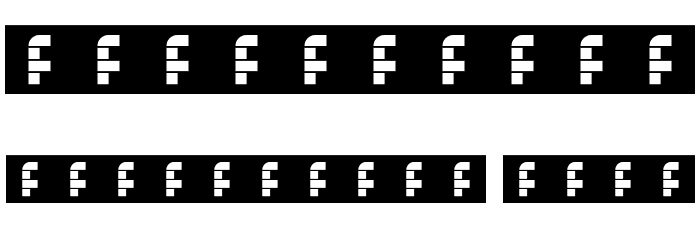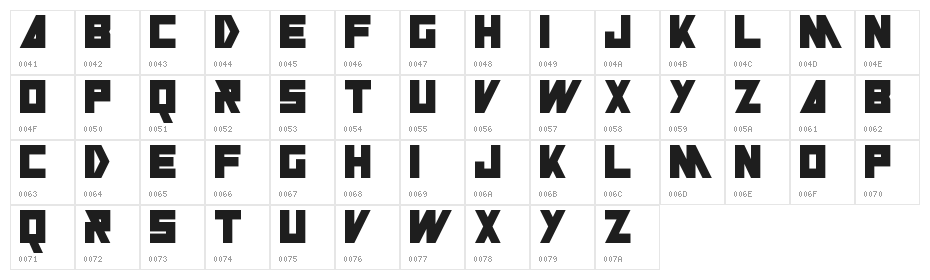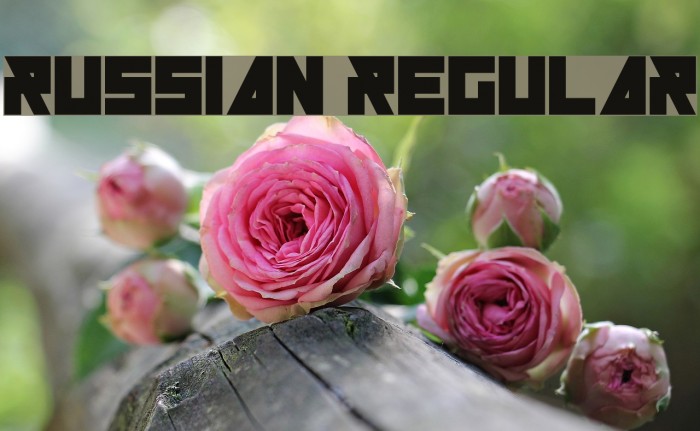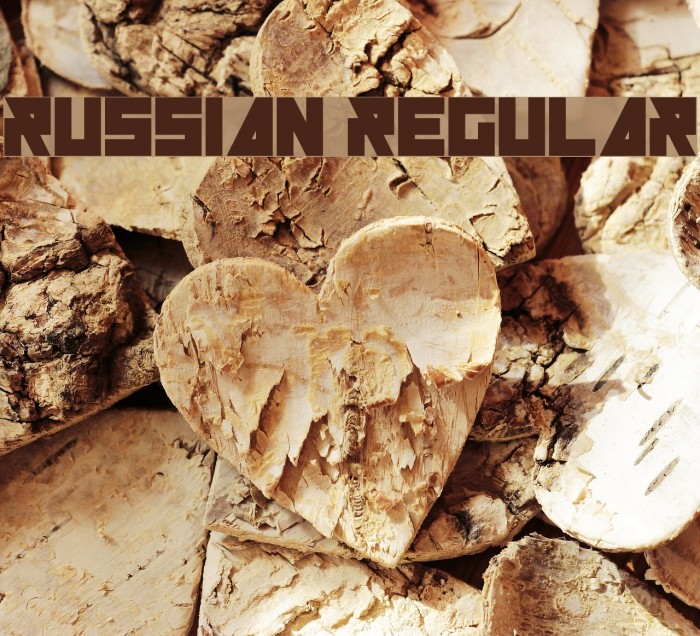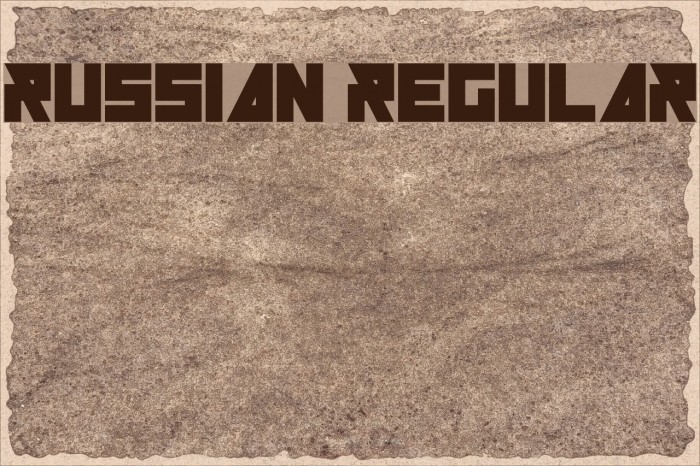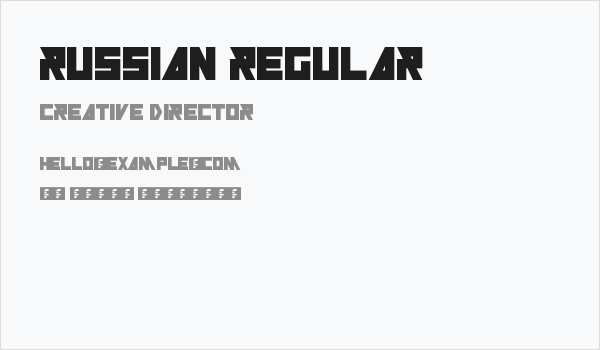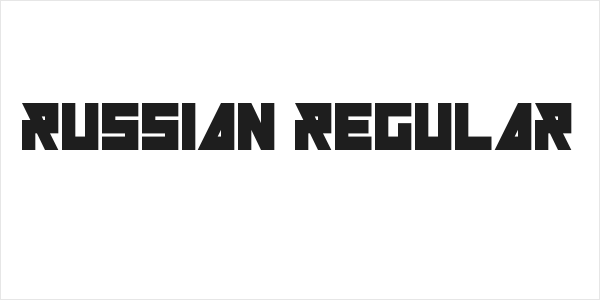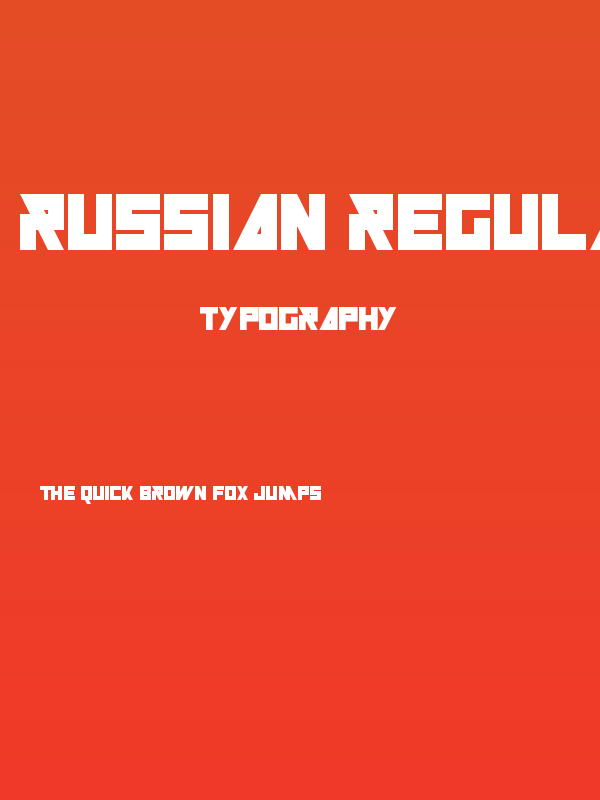
Russian Regular Font
Russian Regular Description
This font features a bold, geometric design with sharp angles and a strong presence. The characters are constructed with a blocky, angular style that evokes a sense of strength and modernity. The uppercase letters are particularly striking, with each character maintaining a consistent height and width, creating a uniform appearance. The font's design is reminiscent of industrial or futuristic themes, making it suitable for projects that require a bold and impactful visual statement. The spacing between characters is tight, enhancing the compact and cohesive look of the text.